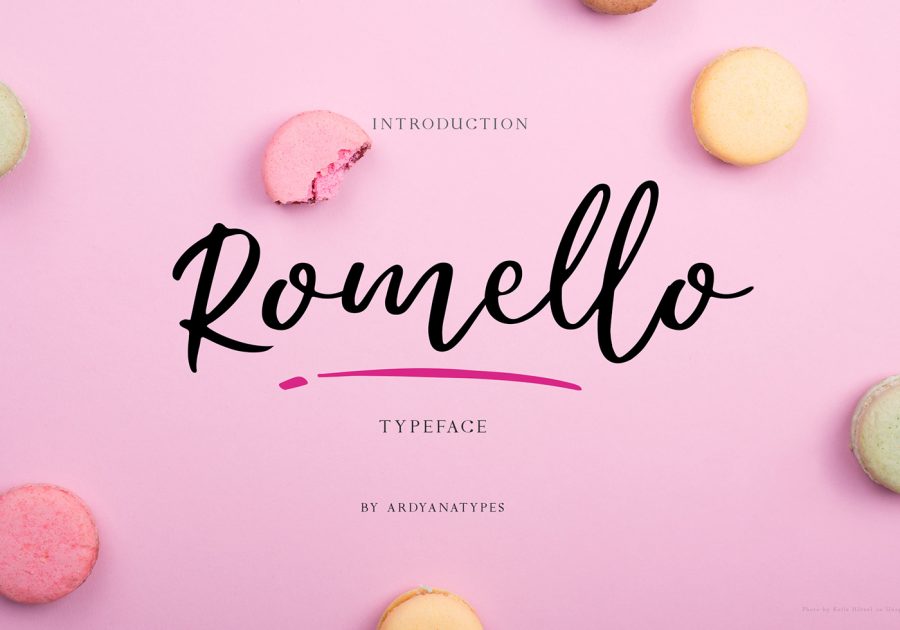
Free Romello Typeface Script Font
Free Romello Typeface Script Font is a beautiful script font. It is suitable for your projects such as wedding invitations, gift cards, flyers, banner, congratulation cards, and more. This font is available for the TTF format file that you can install on your devices as well. It al has some glyph style, you can match it based on your design need. However, this demo font is coming with a personal license use, but if you want to get more features, make sure you purchase it.